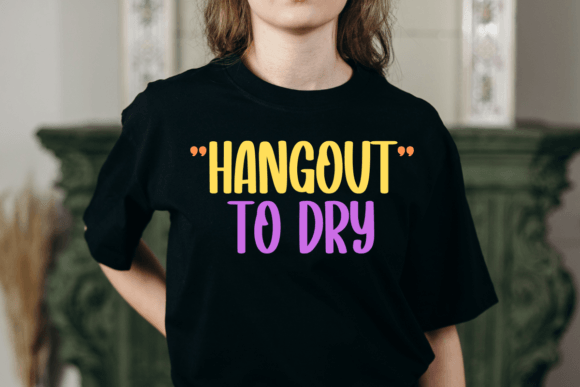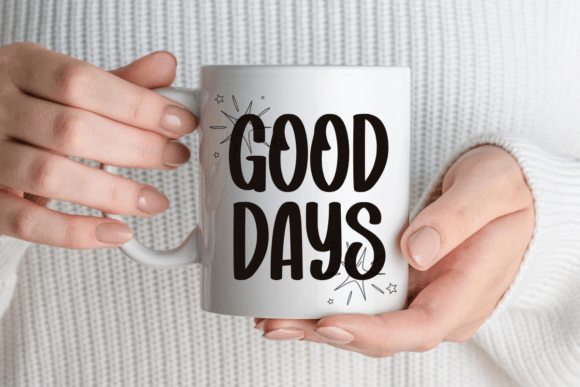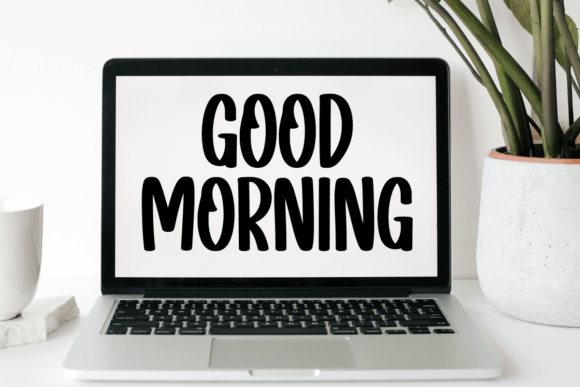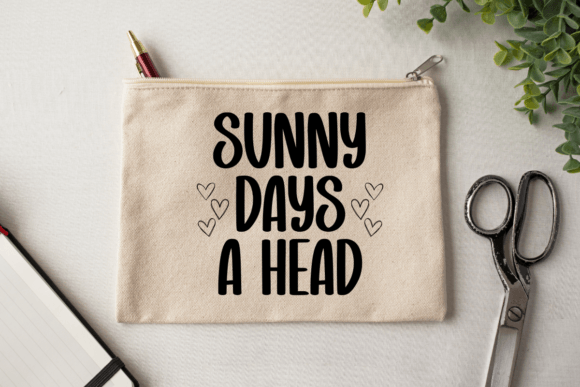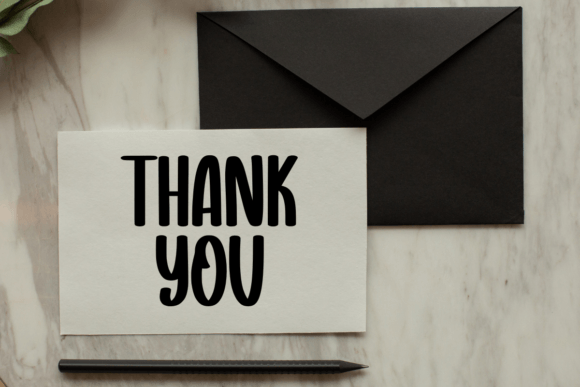
Introduction to Moccacino Font
Have you ever stared at a blank page, waiting for the perfect font to spark your creativity? That’s exactly what happened to me the other day, and I’m excited to share with you a game-changing discovery that will take your design projects to the next level. When I stumbled upon the Moccacino Font, I knew I had found something special – a modern and friendly sans-serif font that exudes a sense of warmth and whimsy.
As a designer, I know how valuable a great font can be in elevating a project from ordinary to extraordinary. And that’s precisely what the Moccacino Font offers – a delightful blend of clarity and playfulness that’s perfect for a wide range of design applications, from children’s books to branding and invitations.
Key Features of Moccacino Font
- Features a transparent background, ideal for use on both light and dark backgrounds
- Includes a range of font styles and weights to suit various design needs
- Designed to be versatile and suitable for a wide range of creative projects, from logos to packaging
Honest Review: Moccacino Font
I recently came across the Moccacino Font while searching for a design resource for a creative project. I was excited to give it a try and see how it would perform.
What works well: ✨ The Moccacino Font is available for free download, which is always a plus. The high quality design makes it perfect for a variety of projects, from branding to digital media. The font also features a transparent background, making it easy to use in a range of different contexts.
Here are some of the key features I like:
- High quality design suitable for a range of projects
However, there are a few limitations: ⚠️ The Moccacino Font is only available in a limited range of weights and styles, which may not be suitable for every project. Additionally, the font may not be as customizable as some other options.
Overall, I was impressed with the Moccacino Font. While it may have some limitations, its high quality design and free availability make it a great option for designers on a budget. With a little creativity, it’s easy to work around the limitations and create a unique and effective design.
The Moccacino Font is a high-quality, free download design resource ideal for creative projects. It features a unique and modern design aesthetic, making it perfect for a variety of applications.
Tips for Getting the Most Out of Moccacino Font
For optimal results, use the Moccacino Font on a transparent background to achieve a clean and modern look. Experiment with different font sizes and styles to add visual interest to your design.
The Moccacino Font is ideal for a variety of creative projects, including: